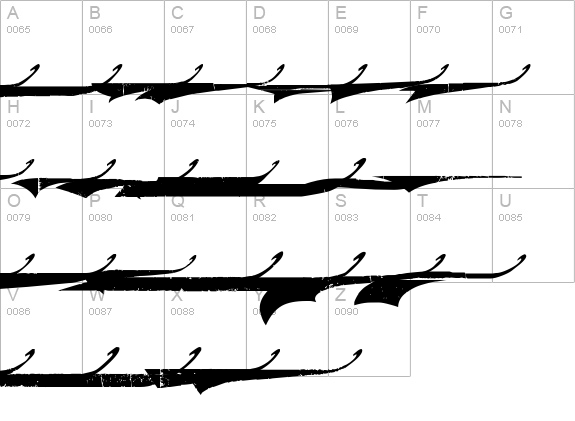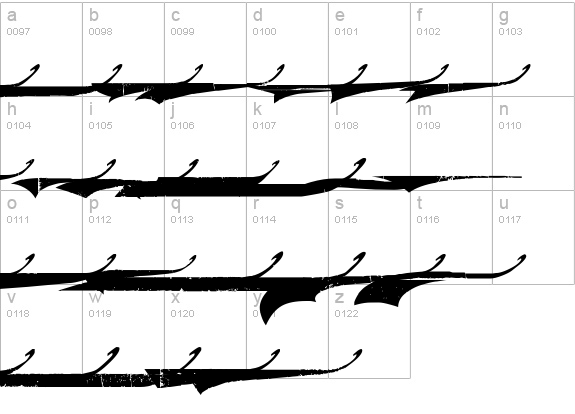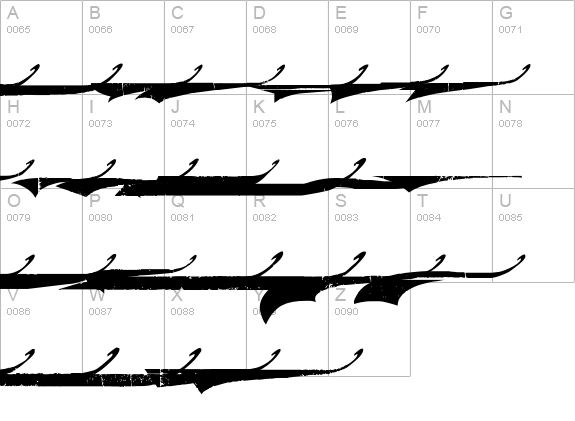
Marcelle Swashes Font Details
Marcelle Swashes font is a beautifully elegant and sophisticated typeface that adds a touch of flair and charm to any project. With its delicate curves and intricate swashes, this font exudes a sense of timeless grace and refinement. Whether used for invitations, branding, or packaging design, Marcelle Swashes font is sure to elevate your creations to new heights. What's even better is that Marcelle Swashes font is available for free download at FontsMarket.com. This means you can easily access this stunning font and incorporate it into your designs without any additional cost. Don't miss out on the opportunity to enhance your projects with the exquisite beauty of Marcelle Swashes font - download it for free today!